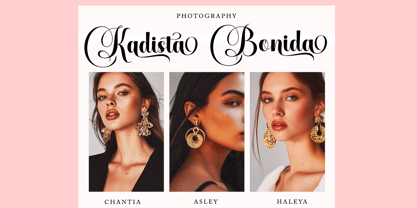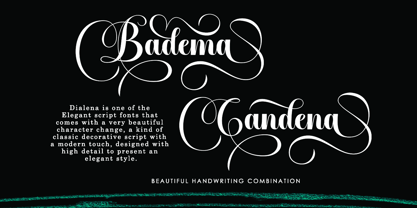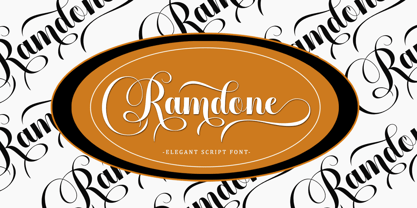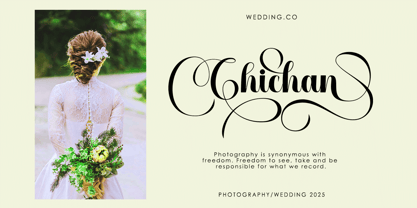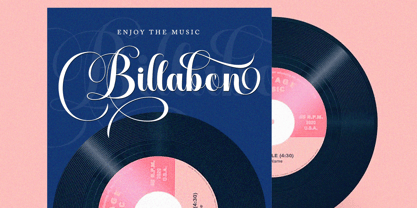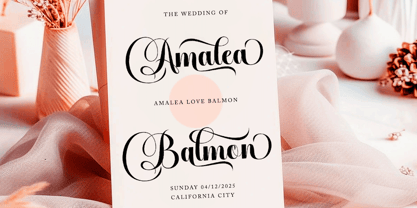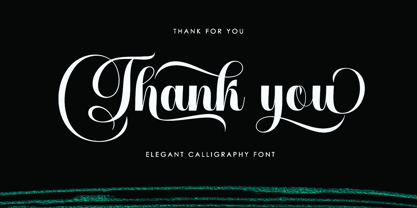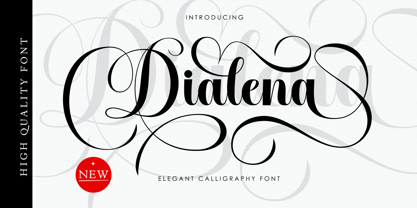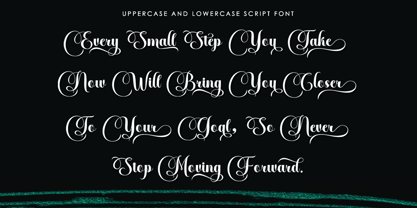
Dialena
by Gold Type
The Dialena Font Family was designed by Wahi Din and published by Gold Type. Dialena contains 1 styles.
Dialena Script Font is an elegant script font featuring beautiful character variations. It combines classic copper style with a modern touch, designed with great attention to detail for an elegant look.
This font is visually appealing, clean, feminine and easy to read, thanks to its luxurious letter connections. Its classic style is perfect for a variety of formal uses, including invitations, labels, restaurant menus, logos, fashion, makeup, stationery, novels, magazines, books, greeting and wedding cards, packaging and all types of advertising.